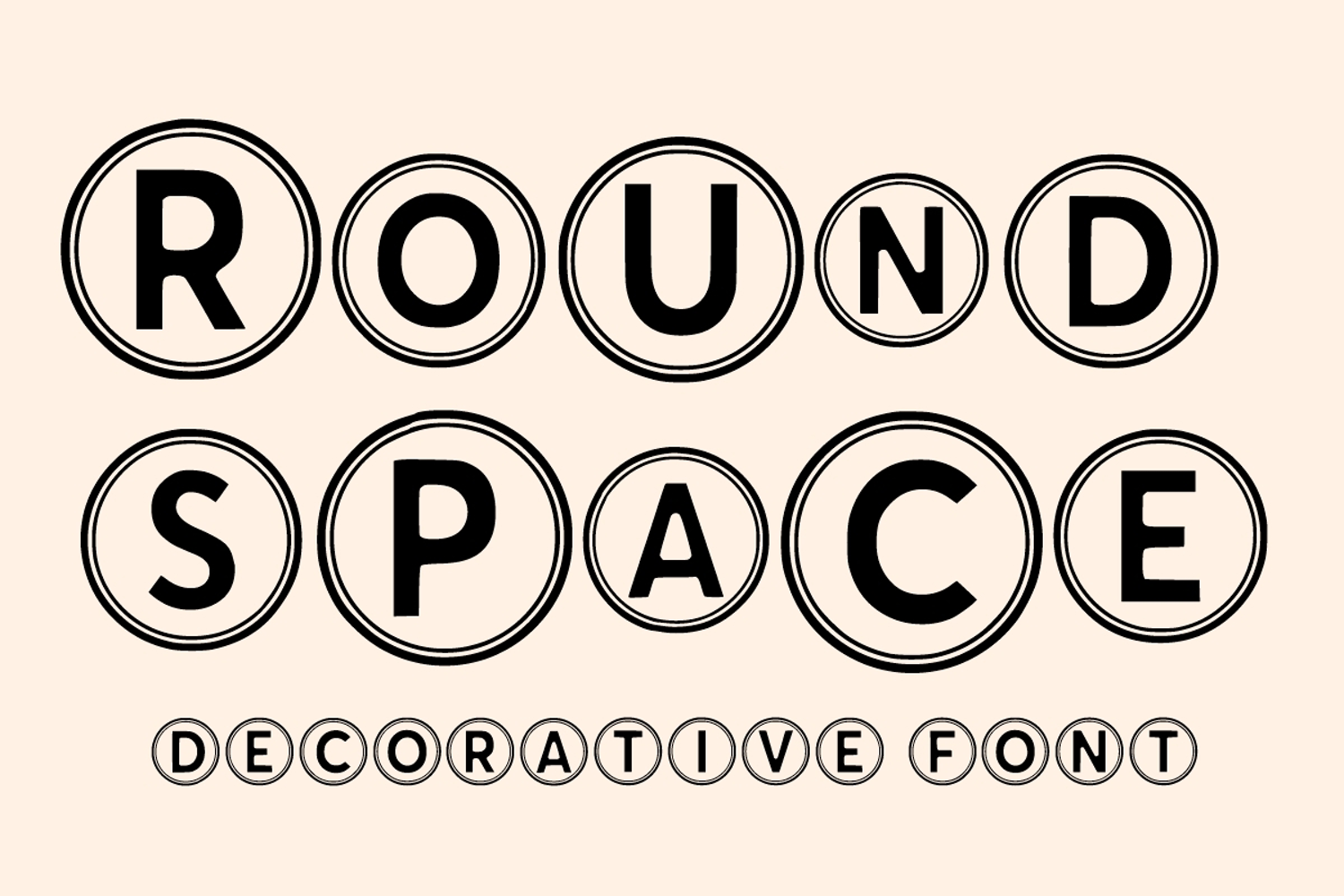
Round Space font
Round Space
Round Space is a round and fun decorative font. Add it to each of your promotions, price tags, logos, party invitations, or pretty much any design that requires a touch of youth and joy.